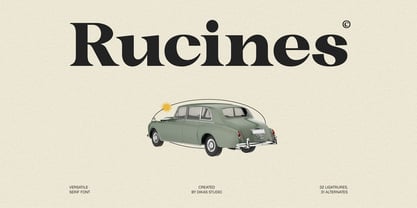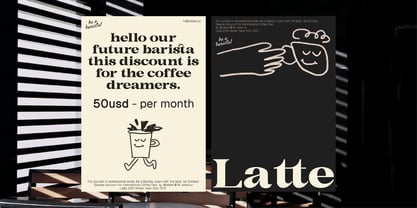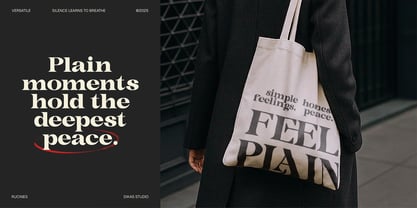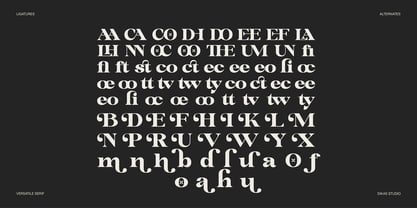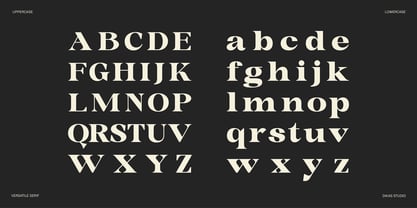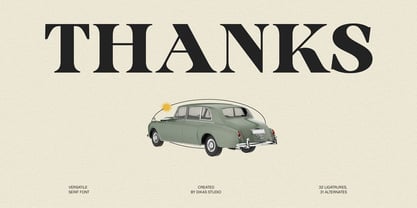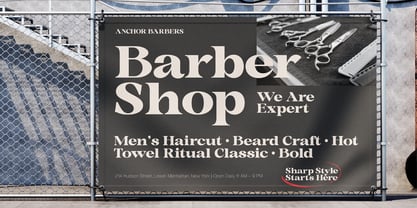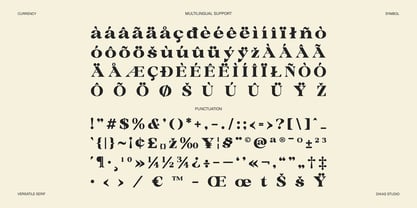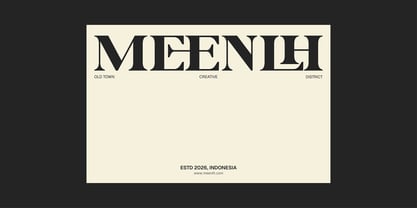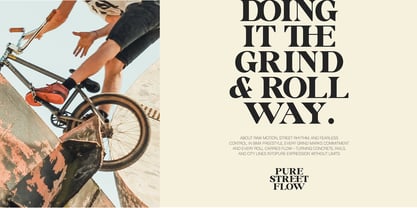
Ruciness
by Dikas Studio
The Ruciness Font Family was designed by Andika Setiawan and published by Dikas Studio. Ruciness contains 2 styles and family package options. More about this family
Ruciness is a vintage serif font that captures a classic atmosphere with a strong nostalgic character. Designed with well-defined serif details, this font delivers an authentic vintage feel while remaining versatile for modern design needs. Ruciness comes in two styles, Regular and Rough, allowing you to switch between a clean classic look and a more textured, handcrafted impression. Enhanced with flowing alternate characters that gently curve and twist, Ruciness adds uniqueness and personality to every composition. This font is perfect for logos, posters, packaging, branding, and any design that calls for a timeless vintage touch with elegant character.
Designers: Andika Setiawan
Foundry: Dikas Studio